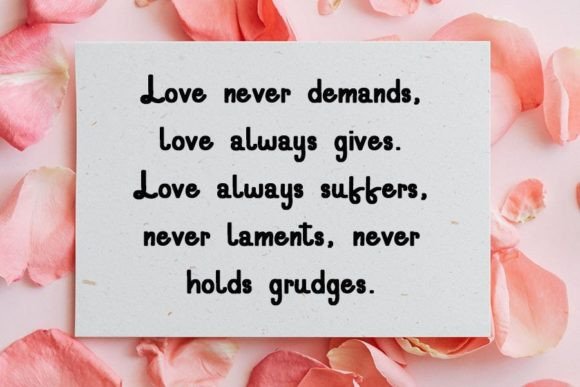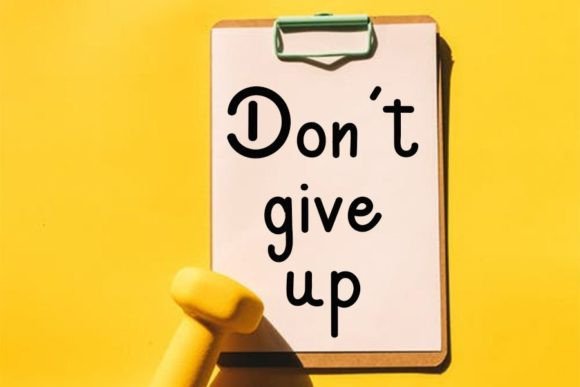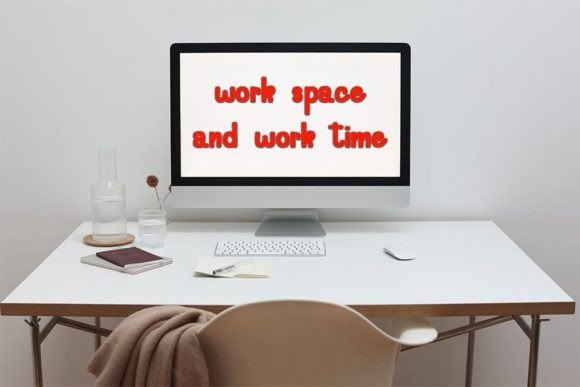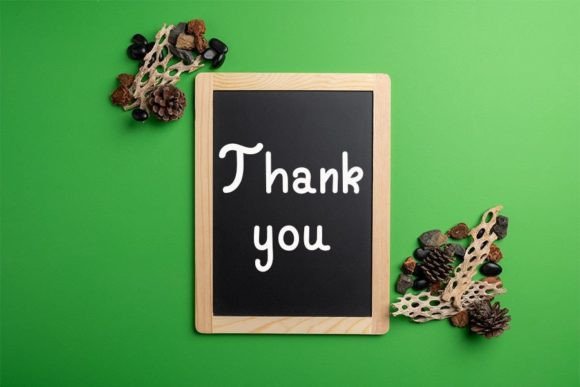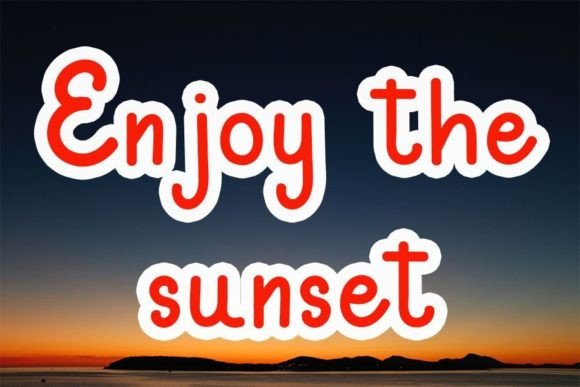
Vanilla Font
About Vanilla Font
“Vanilla” is not just a font; it’s a slim and delicate handwritten script that exudes a sense of daintiness and joy. Ideal for writing wedding invitations, cards, or any design that requires a romantic and personalized touch, “Vanilla” brings a level of elegance and warmth to your projects.
The slim and delicate features of “Vanilla” make it well-suited for applications where a refined and romantic aesthetic is desired. Whether you’re crafting wedding invitations to set the tone for a special day or designing heartfelt cards that convey a personal touch, this font adds a touch of sophistication.
The handwritten quality of “Vanilla” enhances the overall charm and authenticity of your typography. It conveys a sense of personality, making it perfect for projects that require a warm and inviting feel.
As you incorporate “Vanilla” into your designs, you’ll notice how it effortlessly adds a romantic and personalized touch. Its versatility allows it to adapt to various creative contexts, making it a valuable asset for designers aiming to infuse a sense of joy and elegance into their work.
In summary, “Vanilla” is more than just a typeface; it’s a creative tool that brings slim delicacy and joy to your designs. Whether you’re a professional designer working on invitations or someone with a passion for personalizing projects, let “Vanilla” be the font that elevates your work with a romantic and heartfelt flourish.